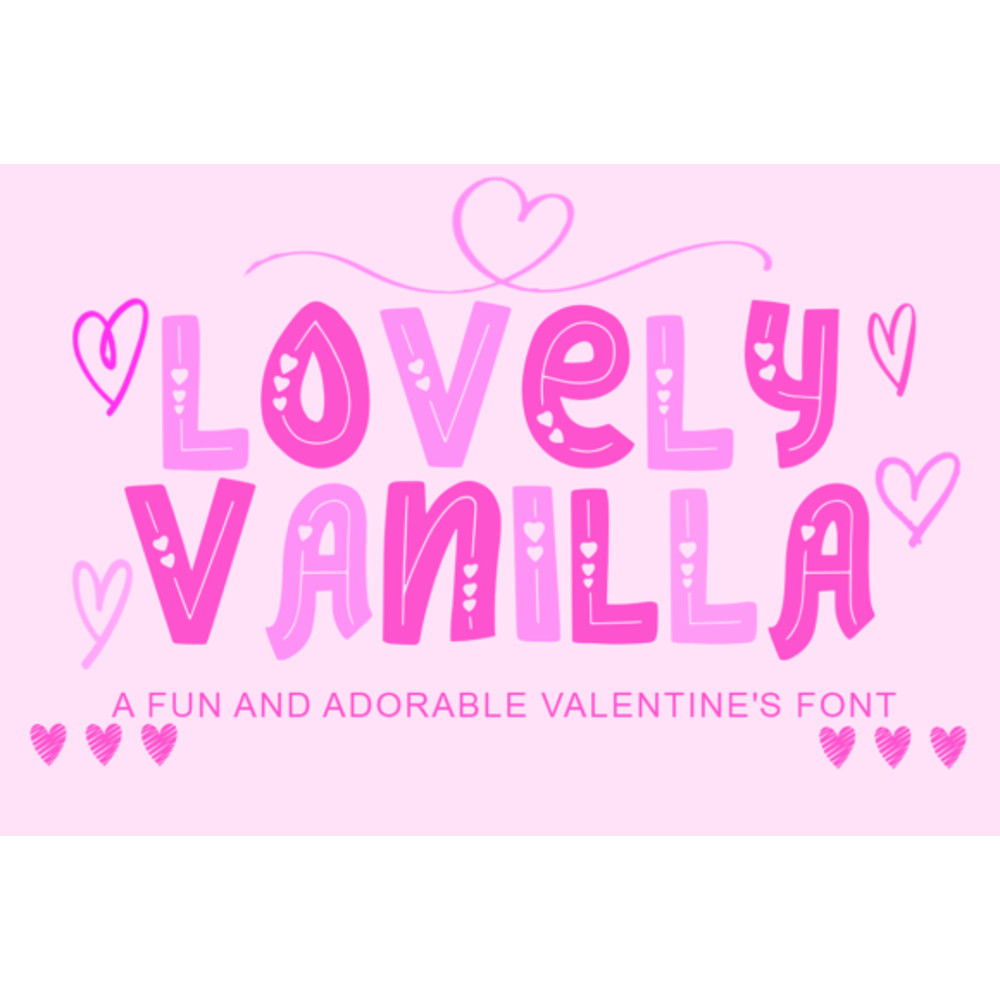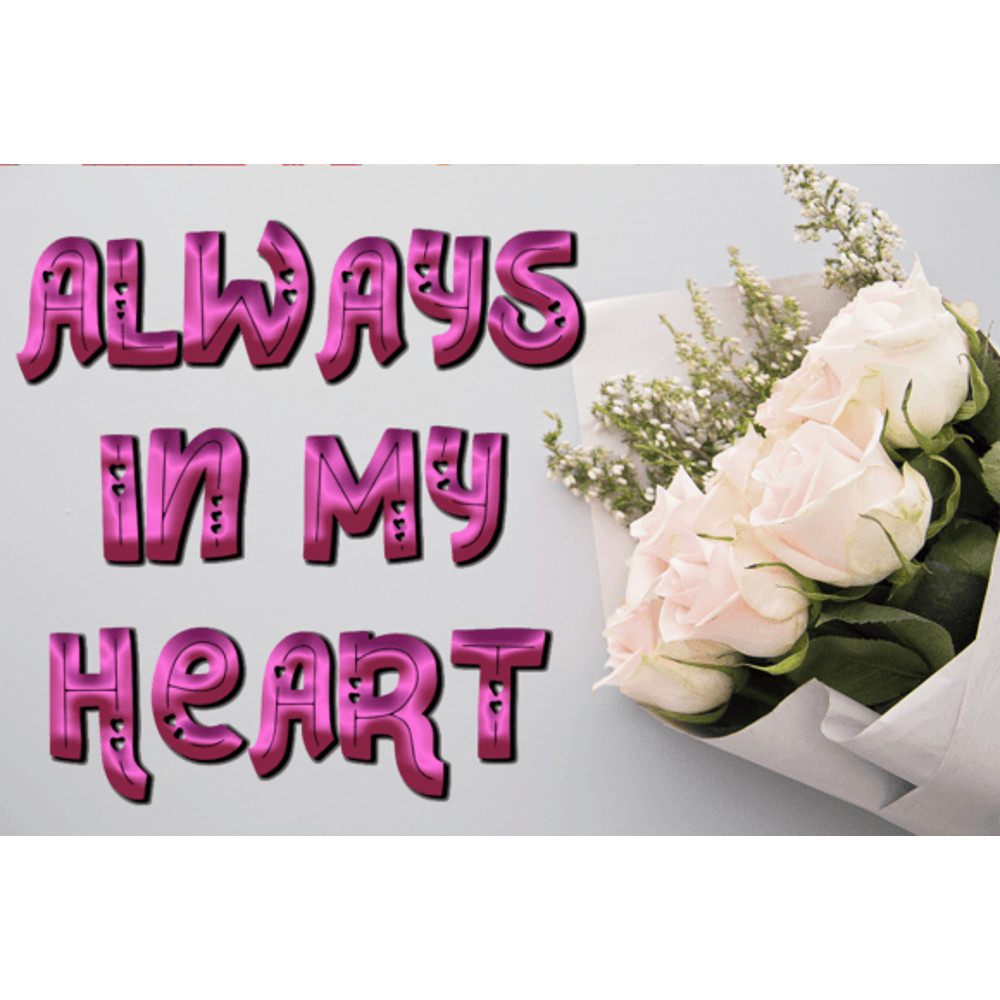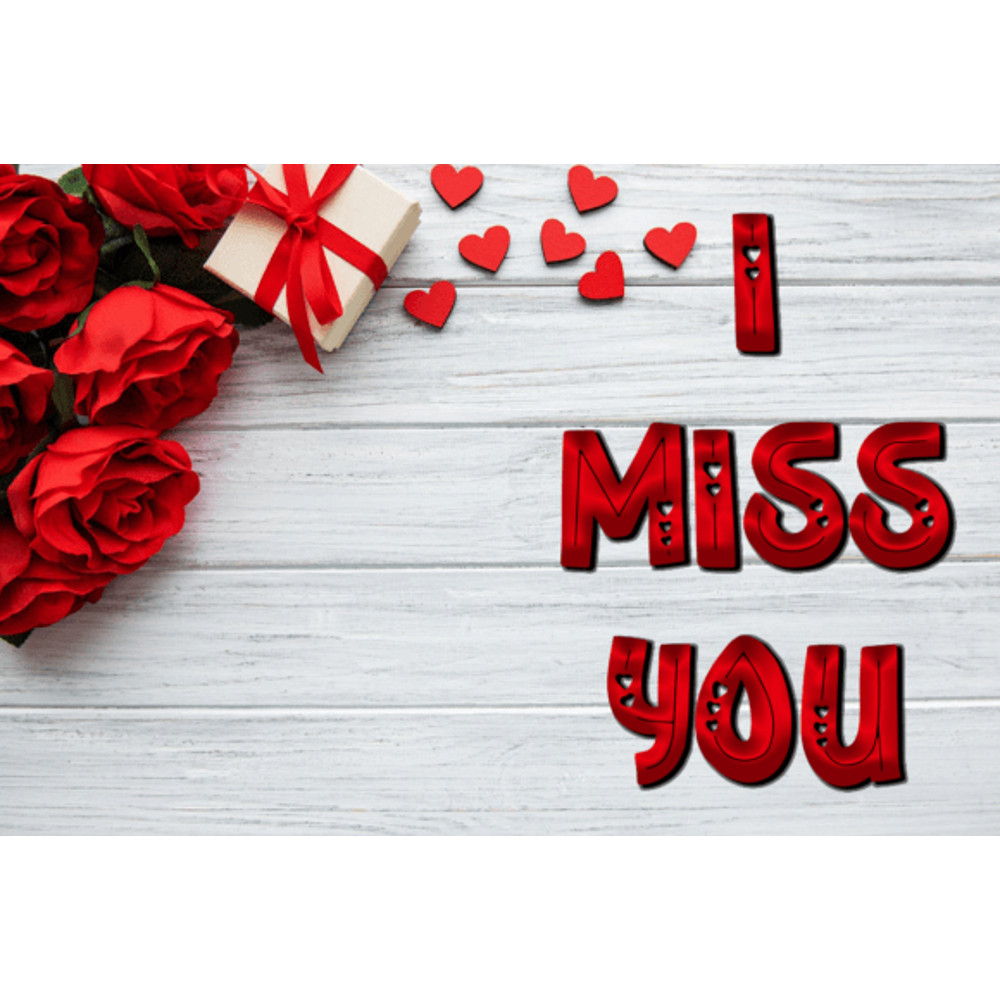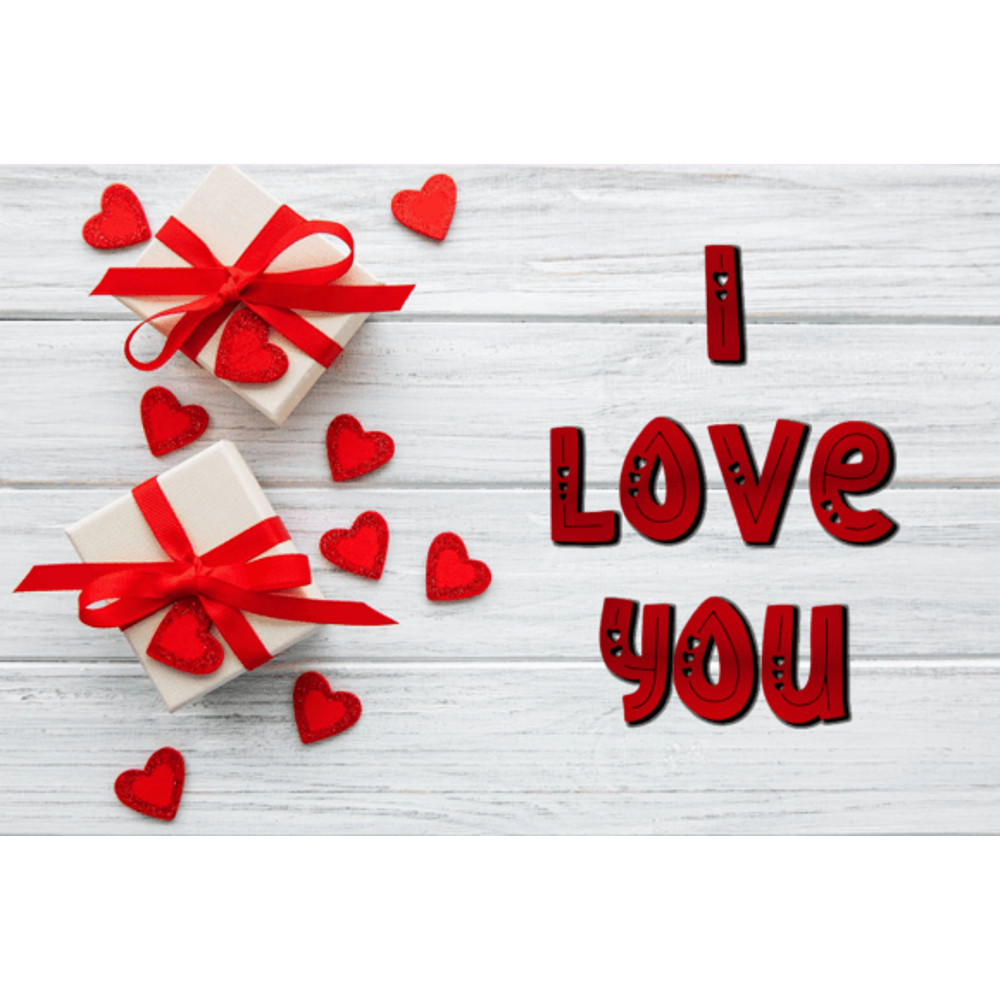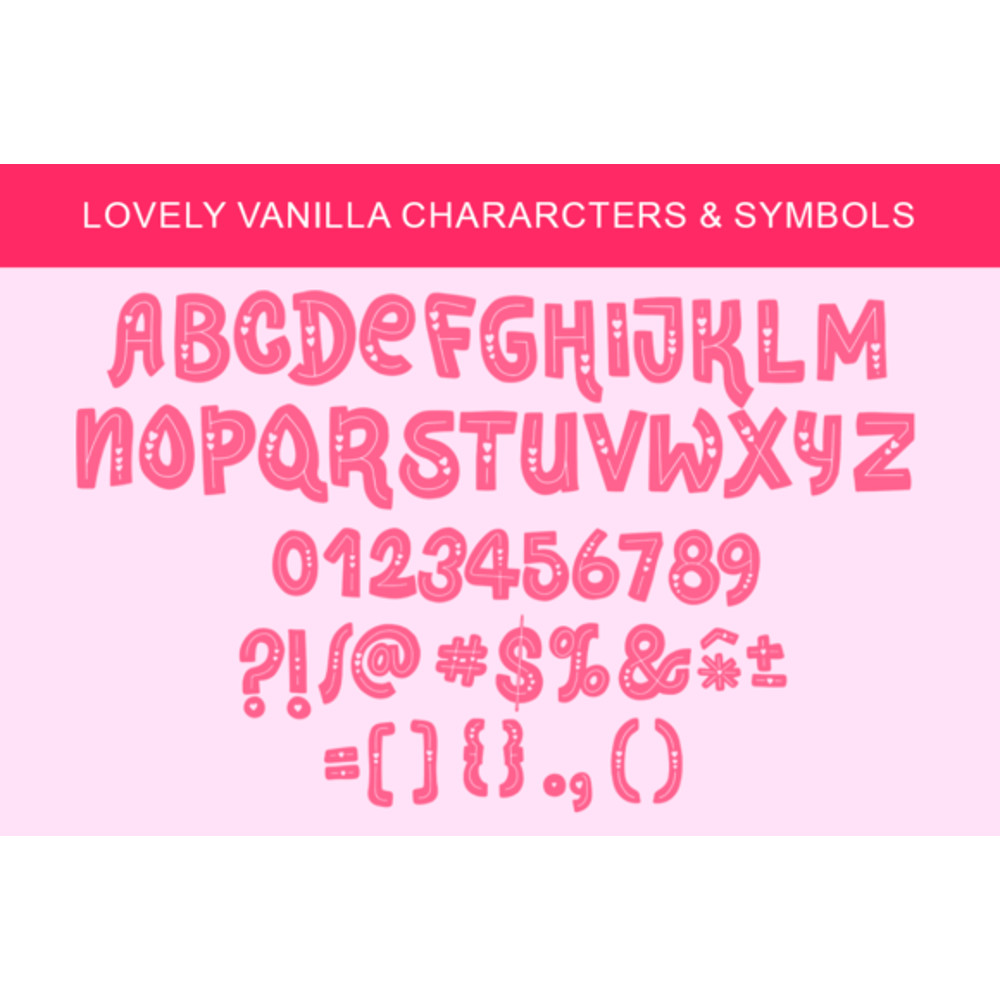
Lovely Vanilla Font
Lovely Vanilla is a Valentine’s decorative font. It is perfect for romantic cards, designs, and various decorations. Use this font for your designs, and explore its endless possibilities!